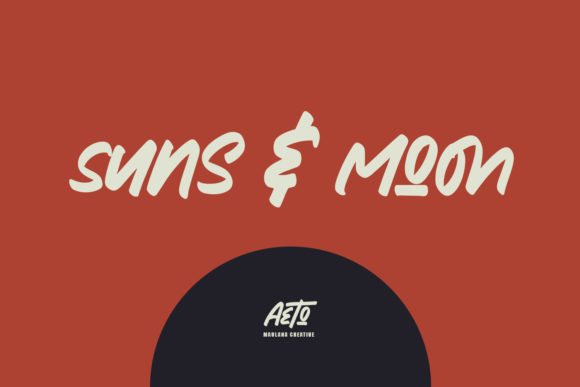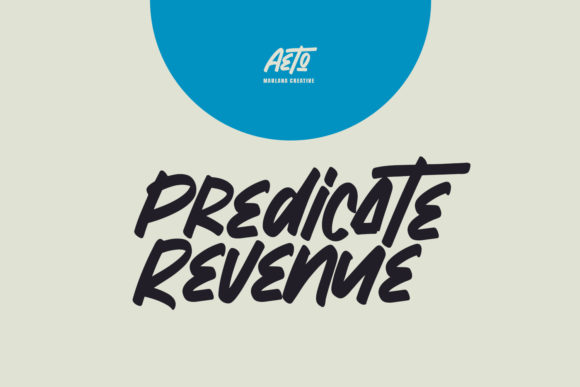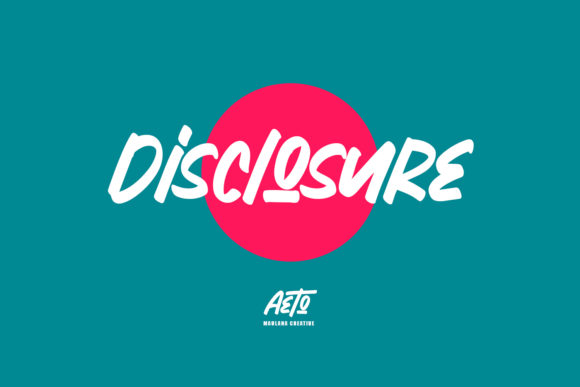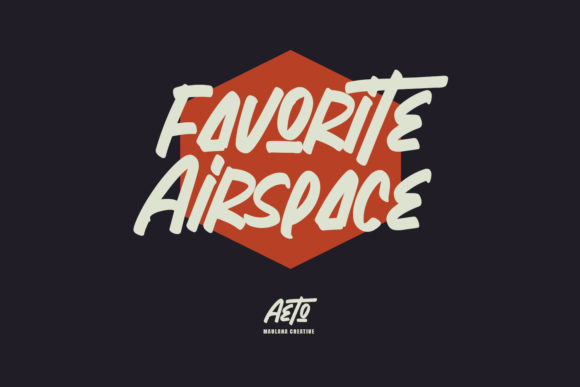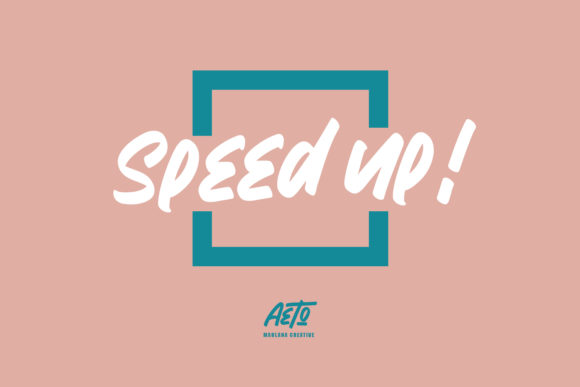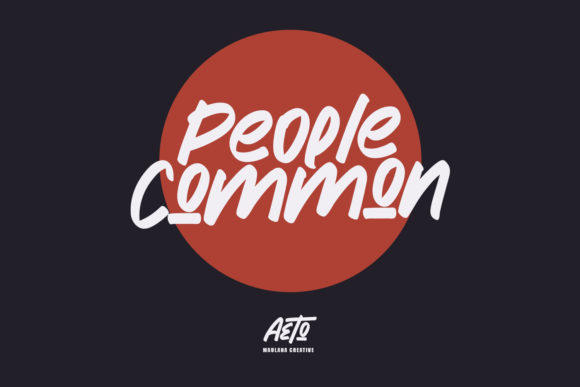
The Sweet Spot: Discovering Aeto Font for Your Creative Projects
I’ll never forget the time I was working on a branding project for a new coffee shop. My client wanted a font that was both playful and elegant, but I was struggling to find the perfect fit. That’s when I stumbled upon Aeto Font, a sweet display font that instantly captured the essence of the brand. In this article, I’ll share my experience with Aeto, its features, and how to make the most of it in your designs.
An Honest Review of Aeto Font
Aeto Font has quickly become one of my go-to fonts for creative projects. Here’s what I love about it:
- ✨ Unique and eye-catching design that’s perfect for making a statement
- ✅ Highly versatile and adaptable to various design contexts
- ⚡️ Great for both digital and print designs
- 👍 Excellent for branding, logos, and typography quotes
However, I do have to mention a few quirks:
- 🤔 Some users might find the font a bit too ornate for certain projects
- Experiment with OpenType features like glyphs and stylistic alternates to add visual interest
The Backstory of Aeto Font
Aeto Font was designed with the intention of creating a unique and versatile display font. The designer aimed to craft a font that would be perfect for creative projects, from branding and logos to typography quotes and magazine covers. With its elegant and playful design, Aeto Font has quickly become a favorite among designers and crafters.
| What is Aeto Font best suited for? | Aeto Font is perfect for signature, stationery, logo, typography quotes, magazine or book cover, website header, clothing, branding, packaging design, and more. |
| Is Aeto Font suitable for body text? | No, Aeto Font is a display font and is best used for headings and titles. For body text, a clearer font is recommended. |
| Is Aeto Font available in different weights and styles? | Currently, Aeto Font is available in a single weight, but the designer may release additional weights and styles in the future. |